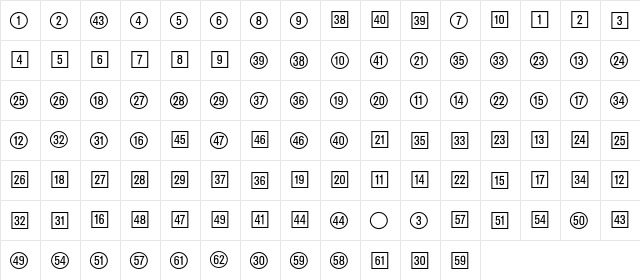
Katalogziffern Positiv BQ Regular
Design Context for Katalogziffern Positiv BQ Typeface
Katalogziffern Positiv BQ is a composed and adaptable typeface that performs quietly and consistently across a wide range of design contexts.
Pro Tip: Use Katalogziffern Positiv BQ in both headline and body roles to test its range before committing to a single application.